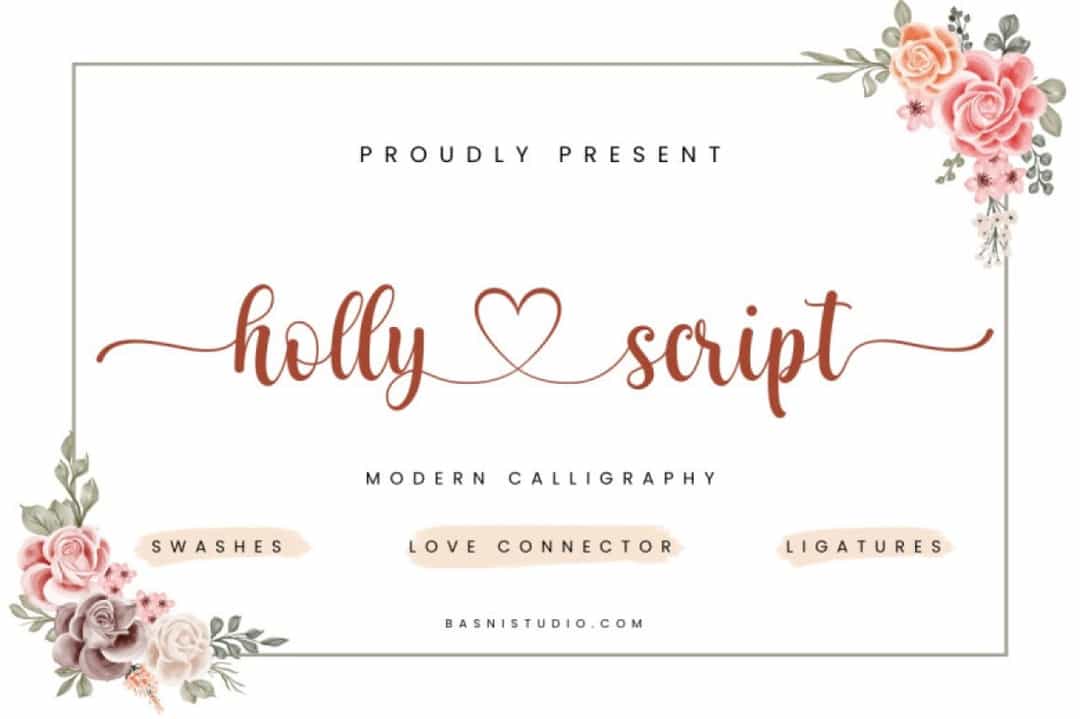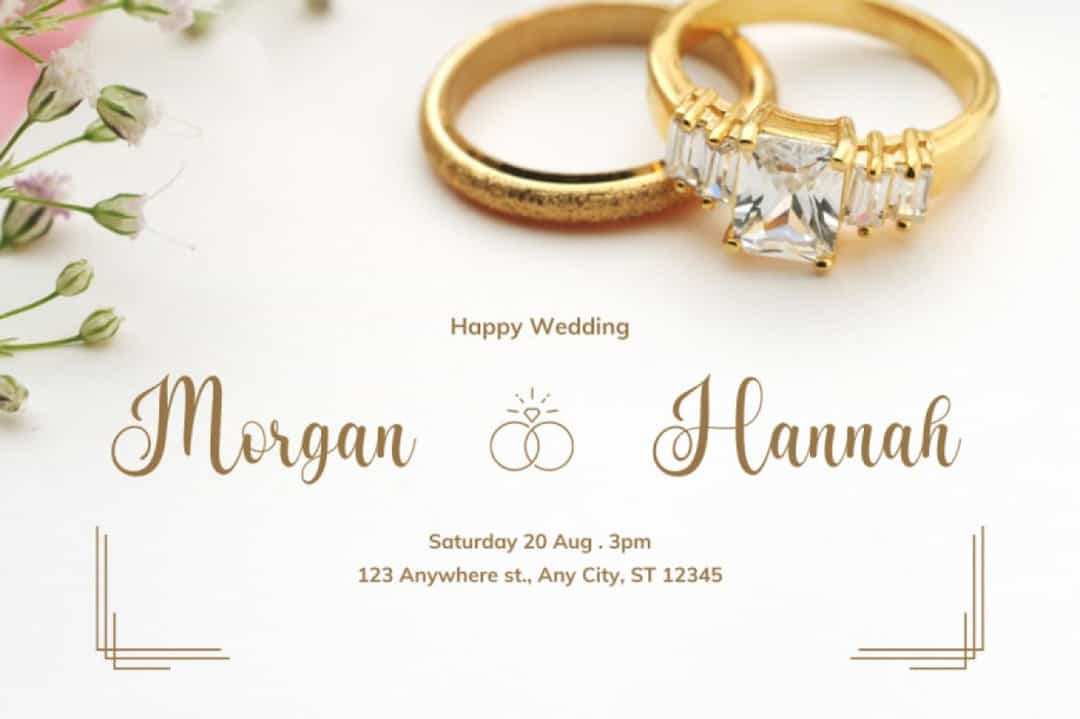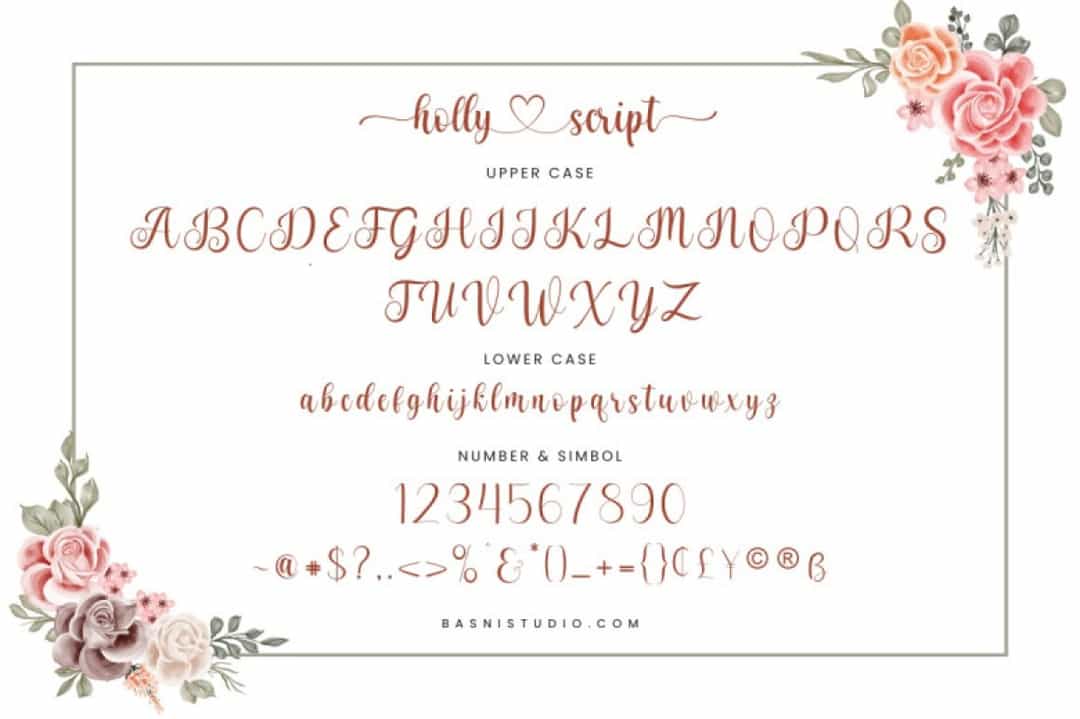
Holly Script is a modern calligraphic font that is ideal for adding an attractive and beautiful look to your projects. Holly Script is very well made, with very neat strokes that add a luxurious impression, there are many style of Glyphs that you can use to enhance your design, this is really charming, please try it yourself.